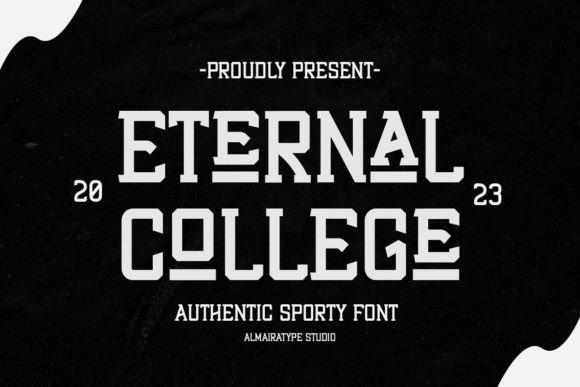
Introducing Eternal College Font, the ultimate choice for your flyer headings! Created by Almairatype Studio, this font is a perfect blend of style and functionality. With its cool and sporty slab serif design, Eternal College Font is guaranteed to make your projects stand out from the crowd.
Whether you're printing t-shirts, designing jersey numbers, or creating branding materials, this font is a go-to option. Its versatility knows no bounds, making it suitable for a wide range of applications. From sports products and headlines to advertisements and posters, Eternal College Font is the perfect companion for all your design needs.
Looking to add a touch of excitement to your flyers, events, or labels? Look no further! This font brings an electrifying energy to your projects, instantly grabbing attention and leaving a lasting impression. Crafters and Graphic Artists will find this font a treasure trove of creative possibilities, as it effortlessly enhances any design with its unique charm.
But it doesn't stop there! Eternal College Font is a must-have for Etsy sellers as well. Catering to the needs of the creative community, this font seamlessly integrates with popular design tools such as Photoshop and Silhouette Design Studio. Unlock a world of imagination and turn your ideas into stunning reality with ease.
Imagine captivating your audience with eye-catching slogans and quotes, beautifully rendered in Eternal College Font. Its sleek and modern aesthetic adds a touch of professionalism to your web projects, traditional media, and crafts. Let your creativity flow freely and watch as this font effortlessly brings your visions to life.
In summary, Eternal College Font is the epitome of style, functionality, and versatility. Its sporty slab serif design is perfect for all your flyer heading needs, while its compatibility with leading design tools ensures a seamless workflow. With Eternal College Font, your projects will leave a lasting impact, captivating viewers and boosting your brand's visibility.